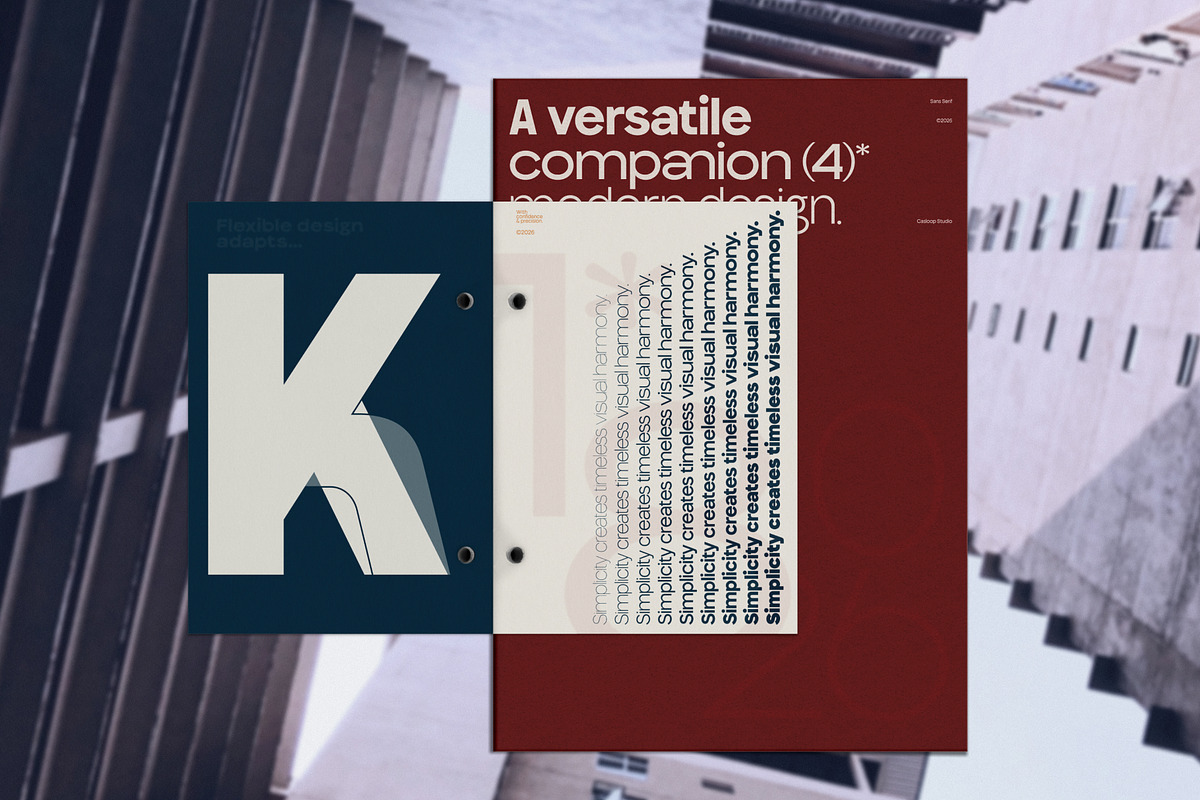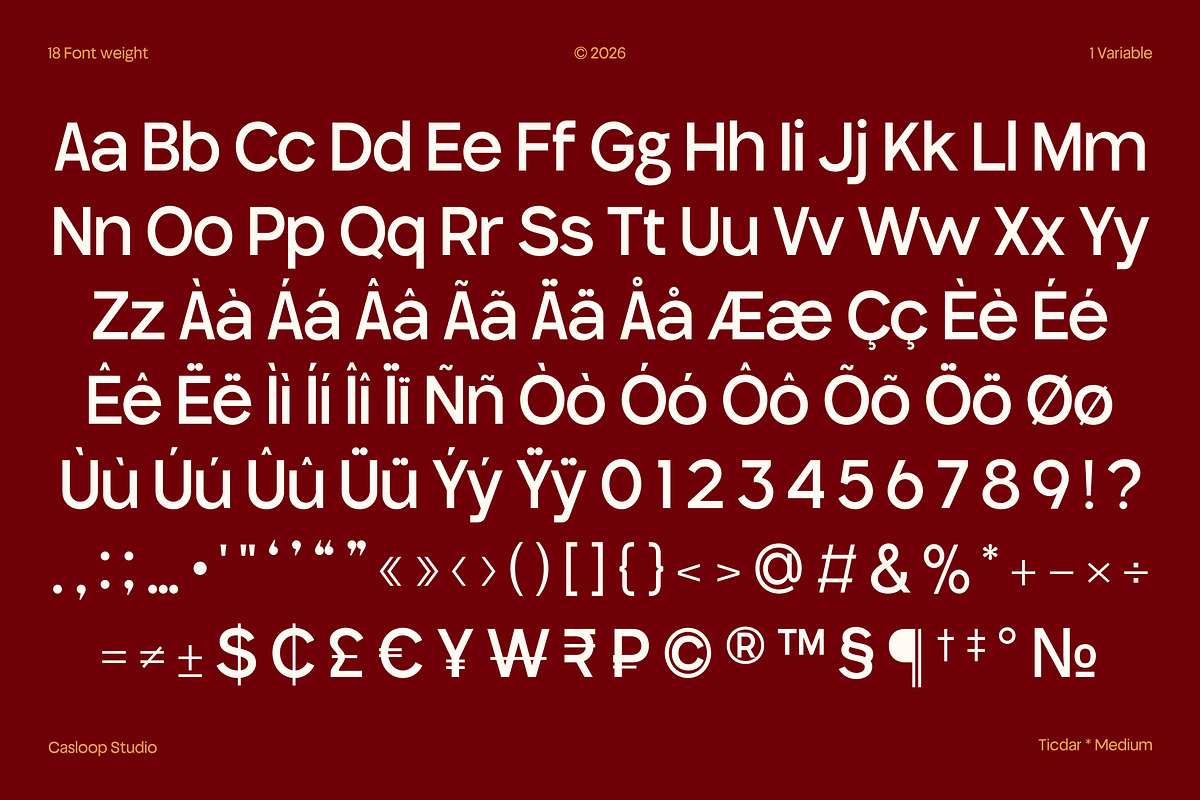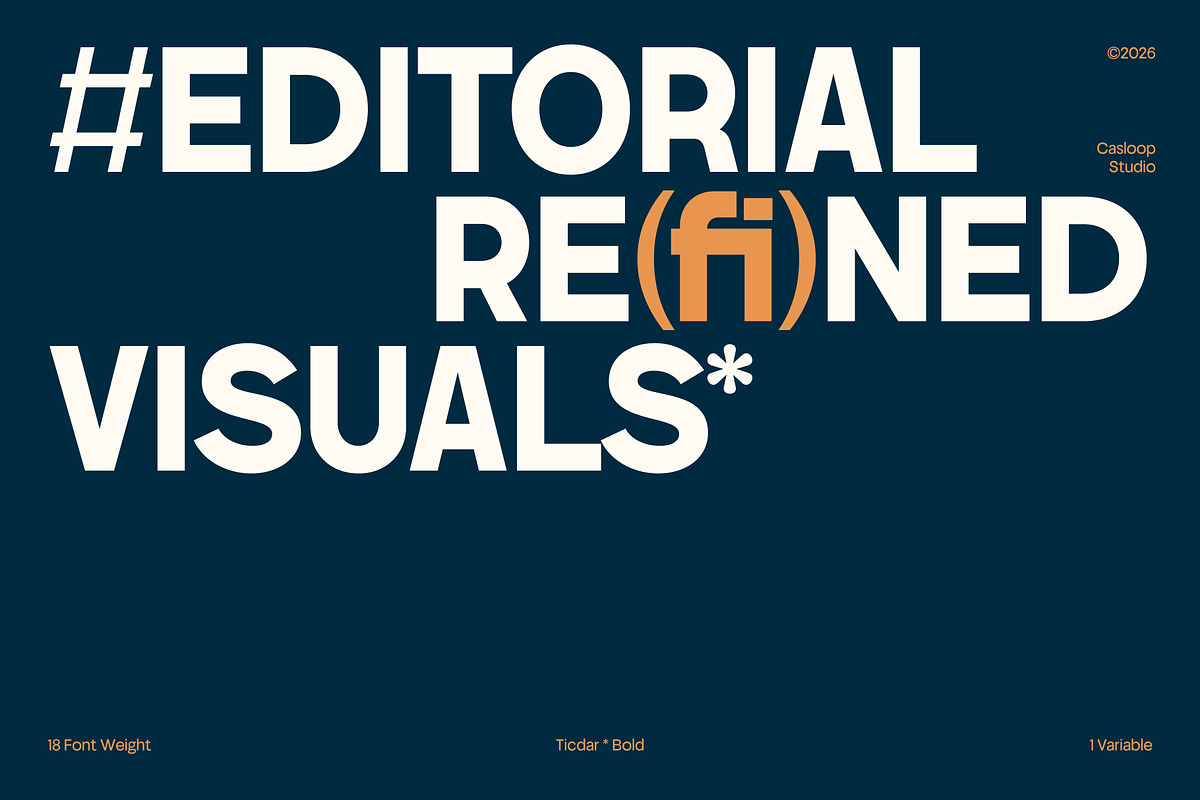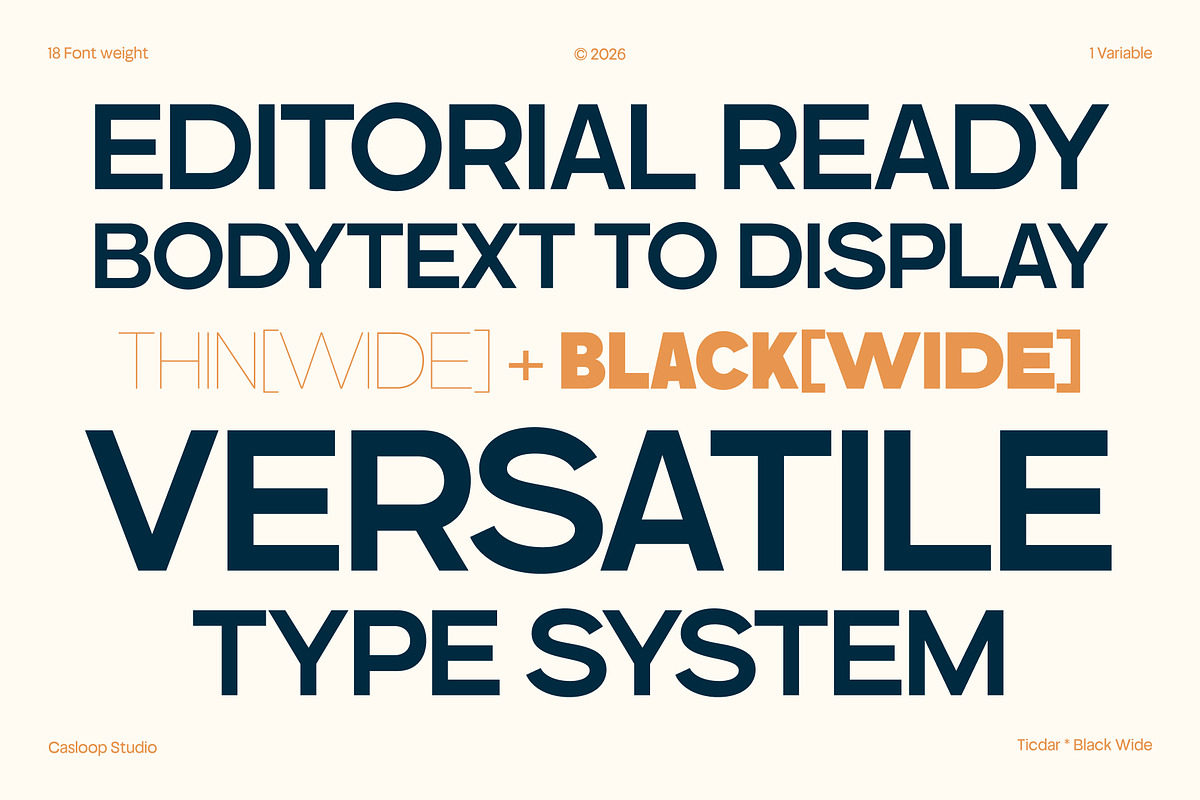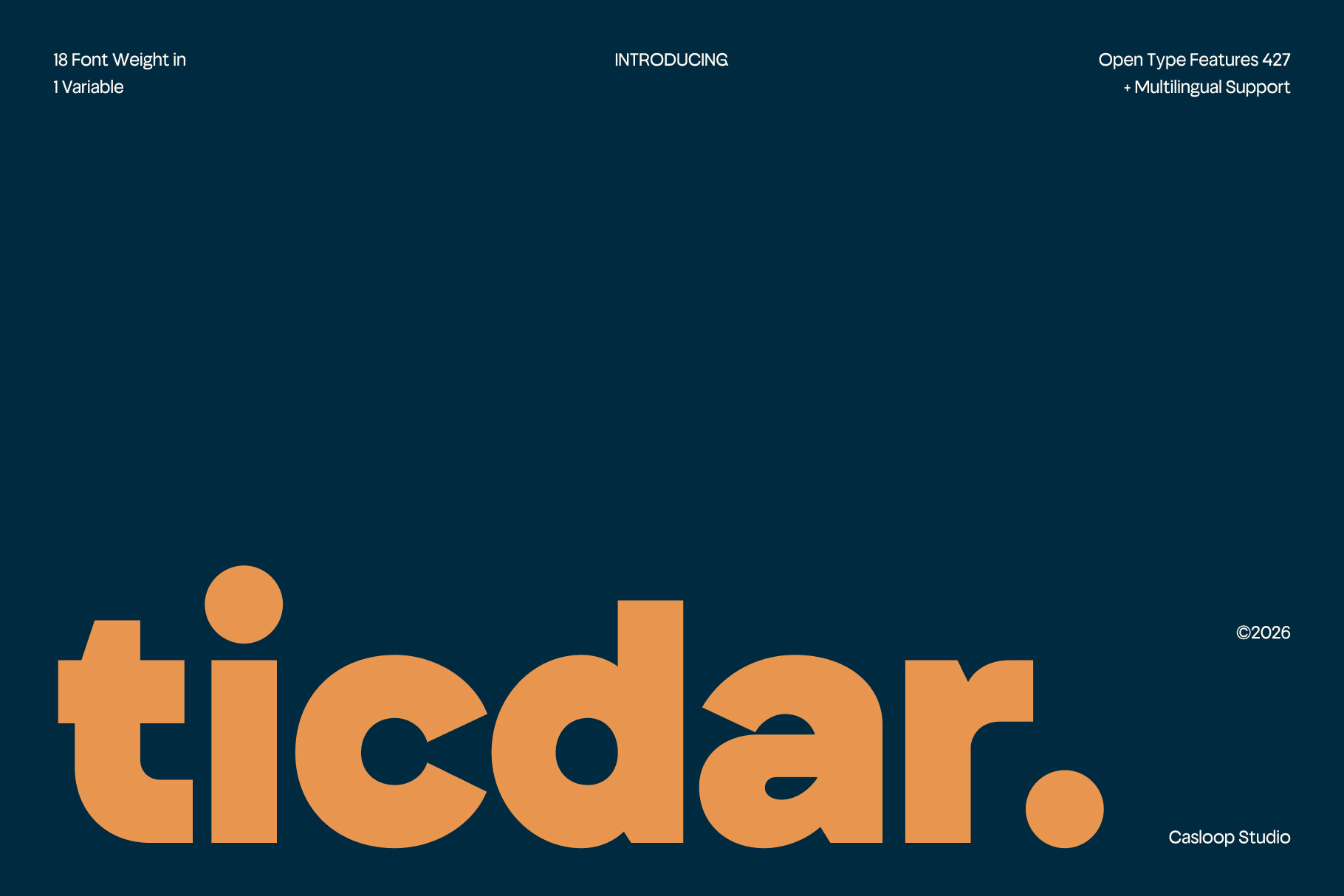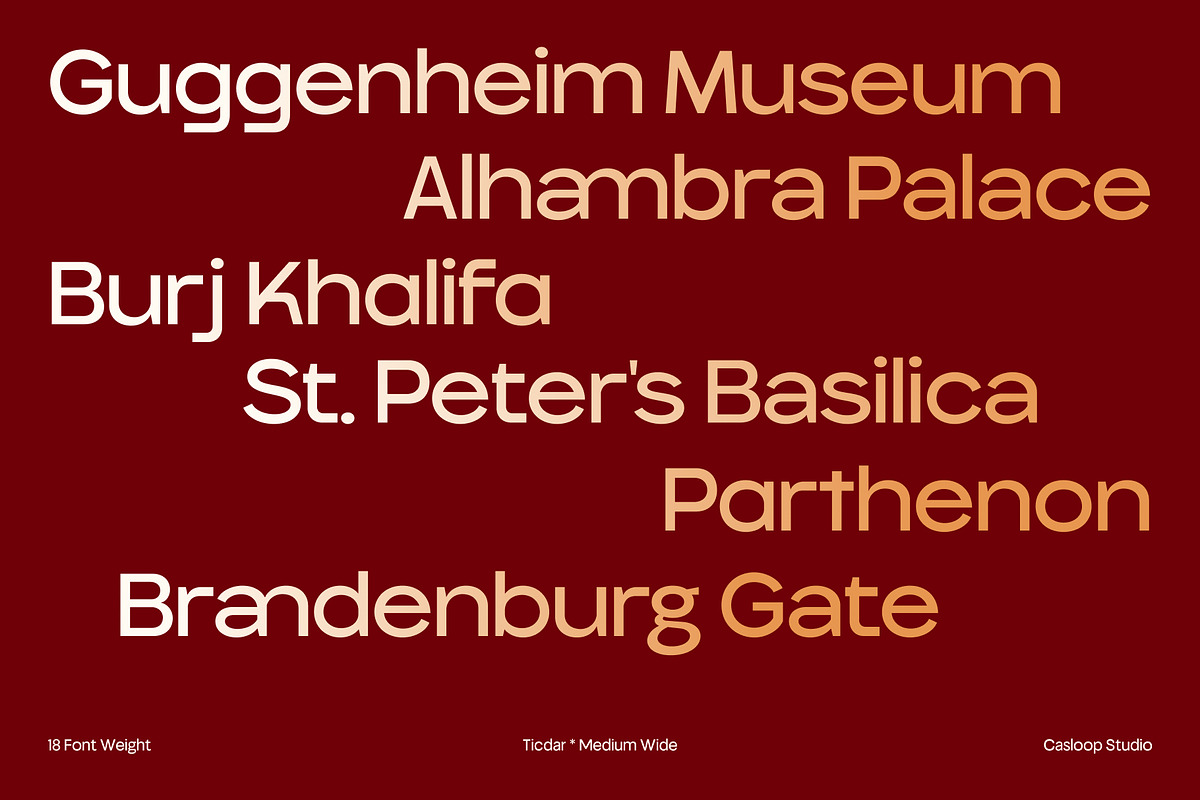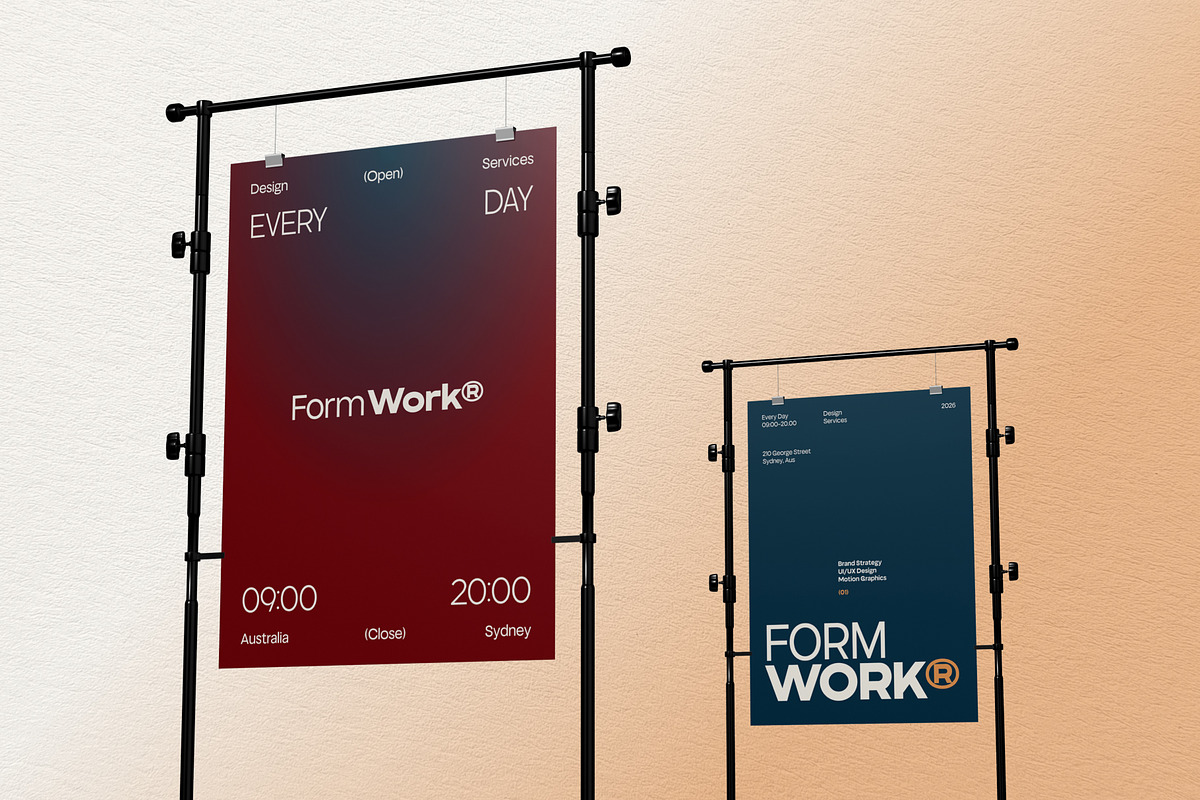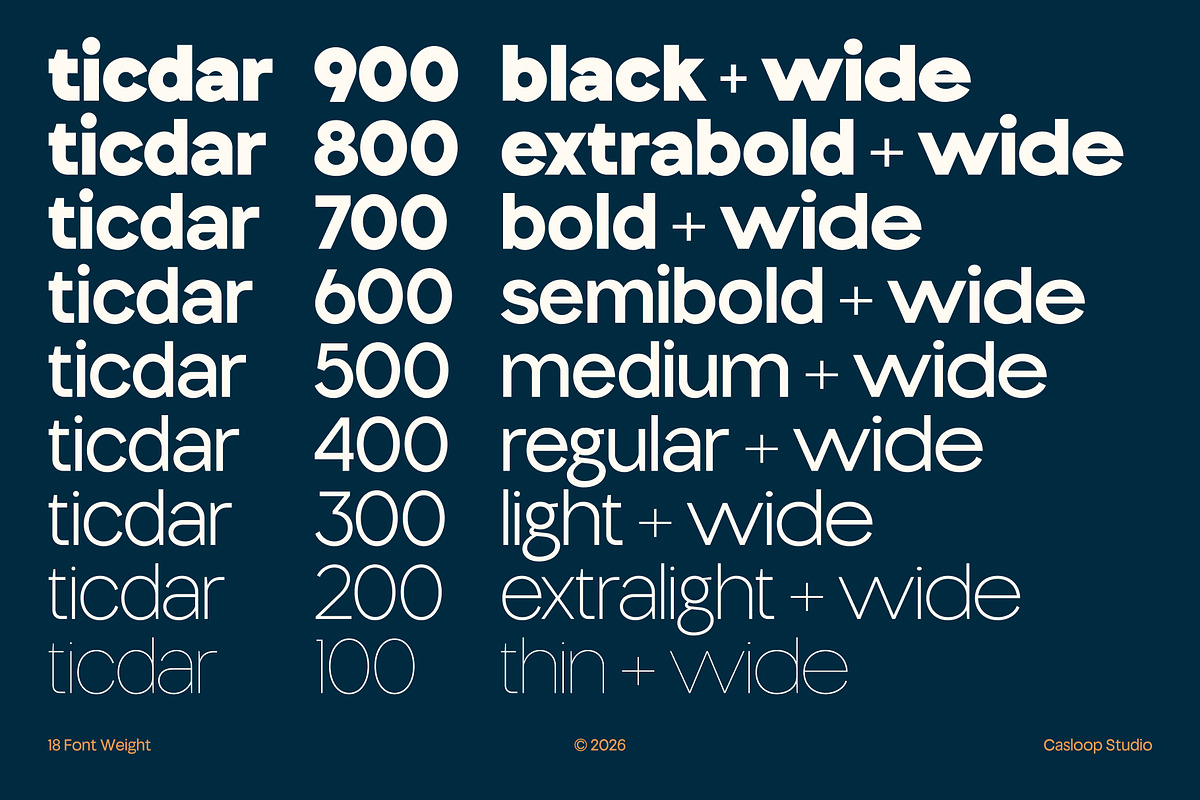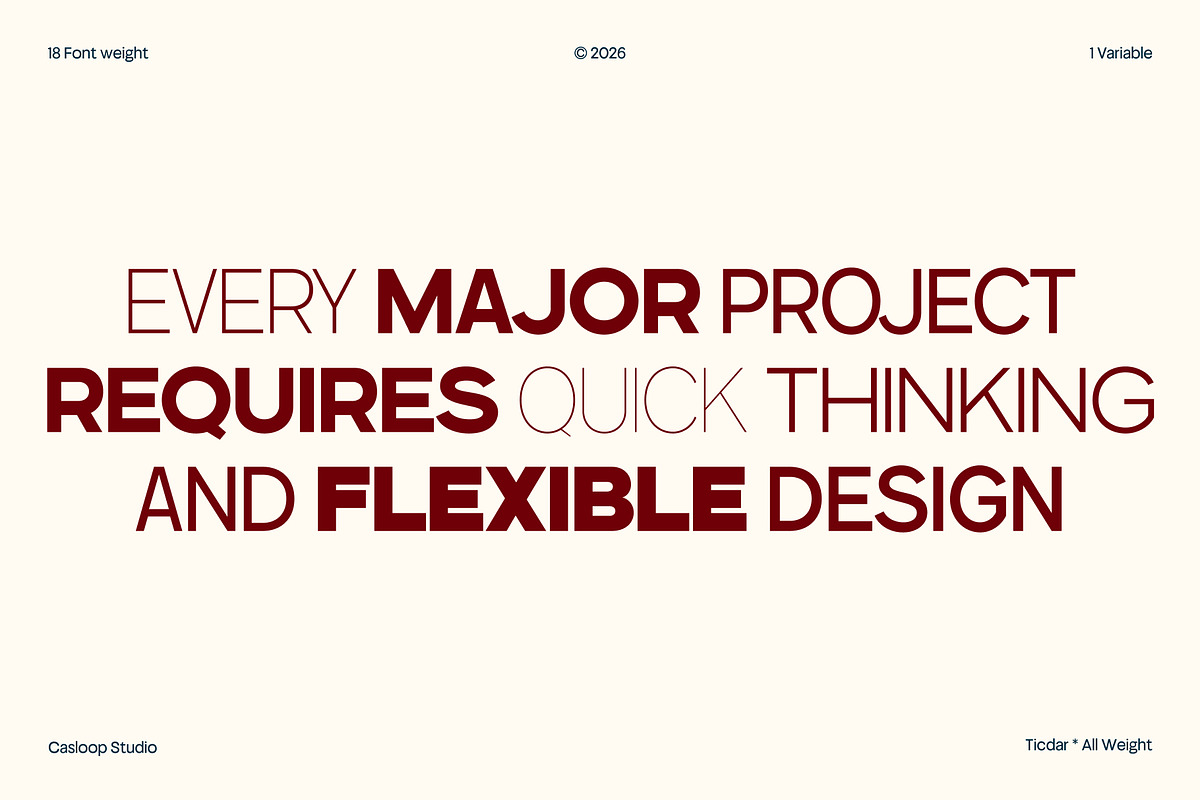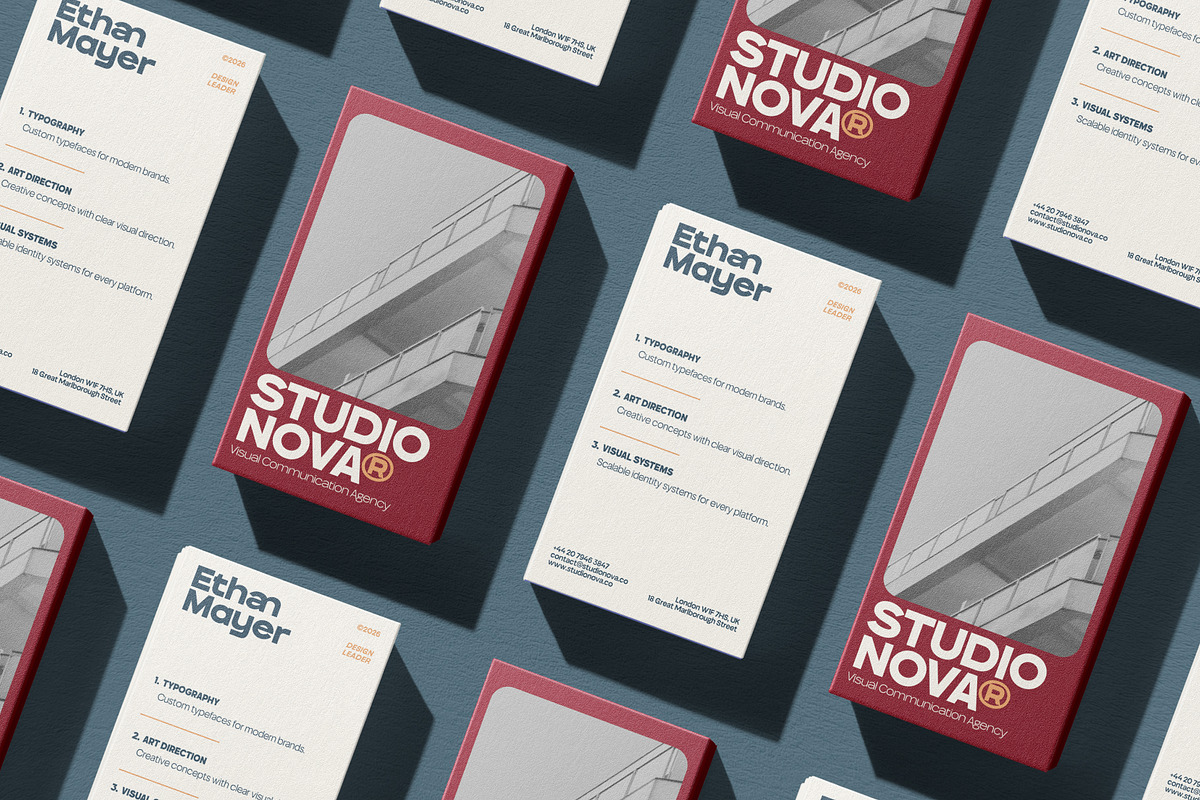
Ticdar – Editorial Typeface
Ticdar is a versatile editorial and branding typeface designed as a reliable workhorse for visual identity systems, headlines, body text, and display applications. Its defining characters A, G, M, R, S, and W establish a controlled visual identity through balanced proportions, assertive terminals, and sharply defined counters that maintain clarity across different sizes and weights. With 18 weights ranging from Thin to Black, including matching Wide styles, Ticdar offers a flexible typographic system that adapts effortlessly from compact body copy to expressive headlines, making it a strong choice for editorial design, brand identity, packaging, campaigns, and modern visual communication. Recommended pairing with Inter, Manrope, Source Sans 3, Helvetica Neue, Univers, Avenir
Uppercase & Lowercase,
Numbers and punctuation,
Ligatures & Stylistic Alternates Characters
Multilingulal Support : Bosnian, Catalan, Czech, Danish, German, English, Spanish, Estonian, Finnish, French, Irish, Croatian, Hungarian, Icelandic, Italian, Lithuanian, Latvian, Dutch, Norwegian, Polish, Portuguese, Romanian, Slovak, Slovenian, Albanian, Swedish, Turkish.